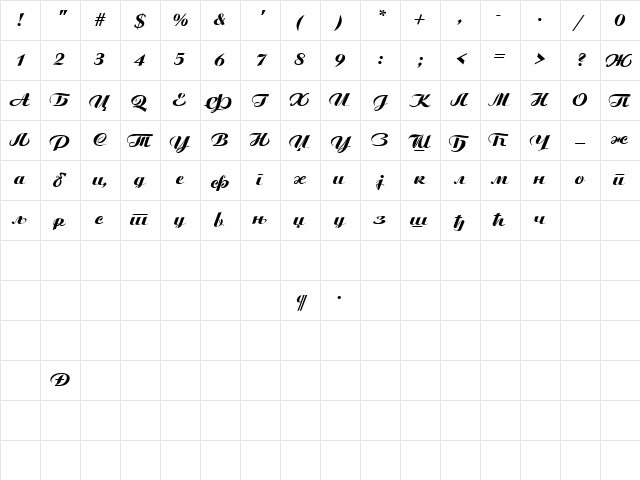
Complete 1 Ariston Regular glyph index. Displaying only characters natively supported by 1 Ariston Regular font.
1 Ariston is a composed and adaptable typeface that performs quietly and consistently across a wide range of design contexts.